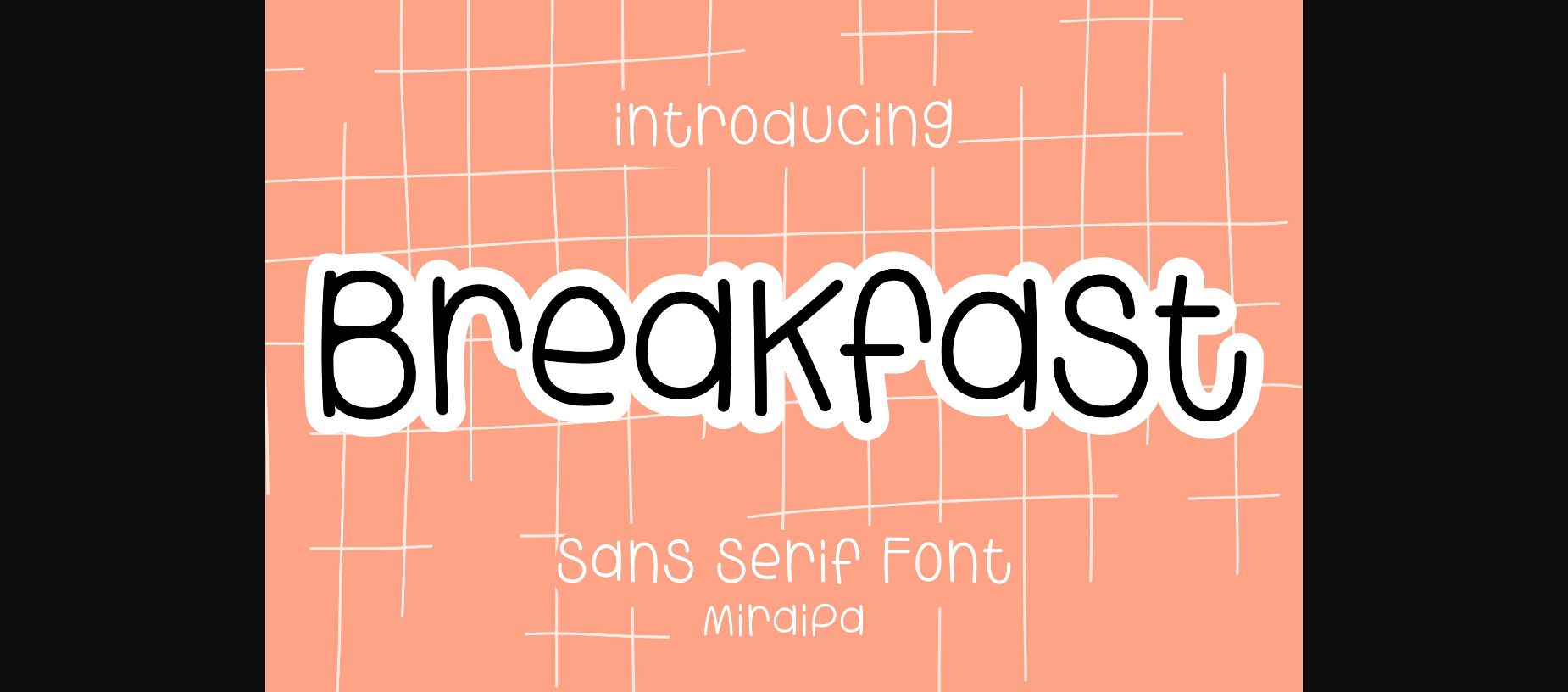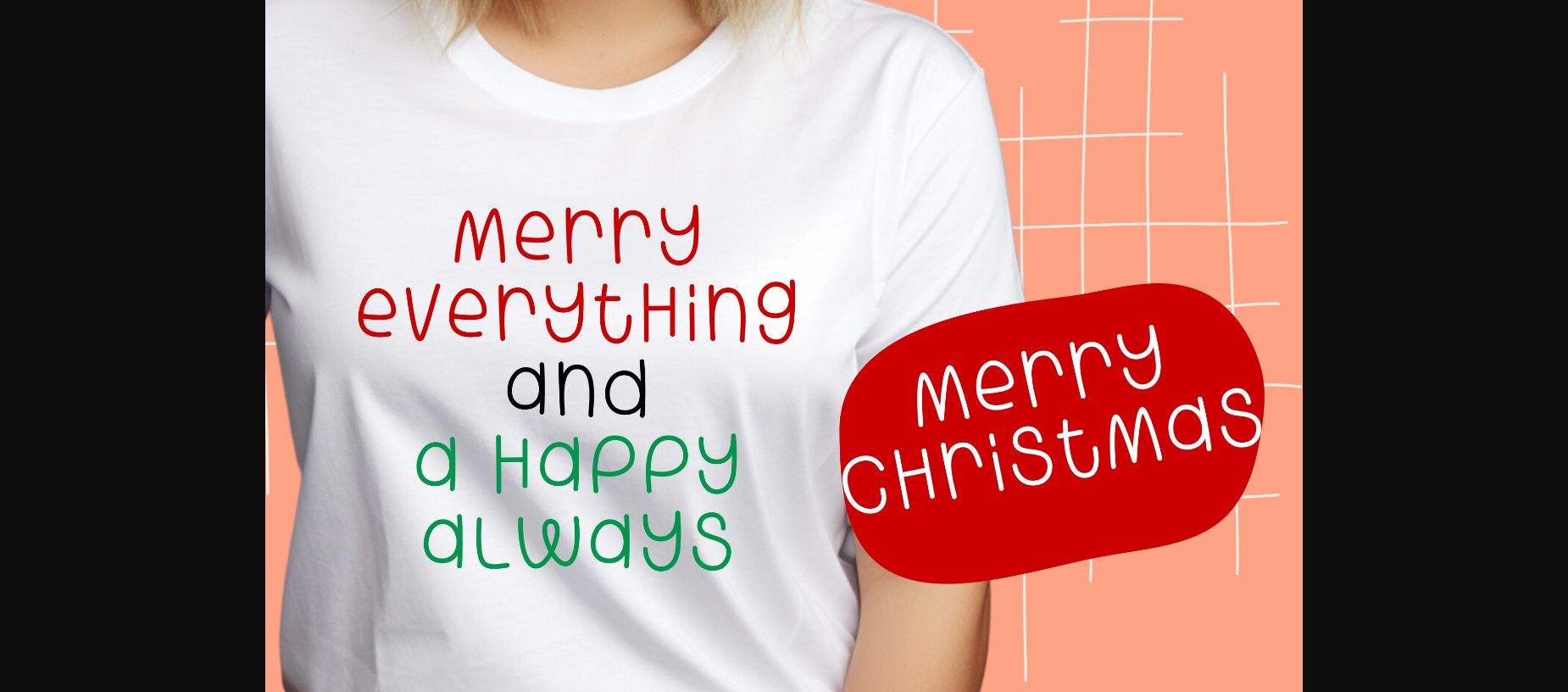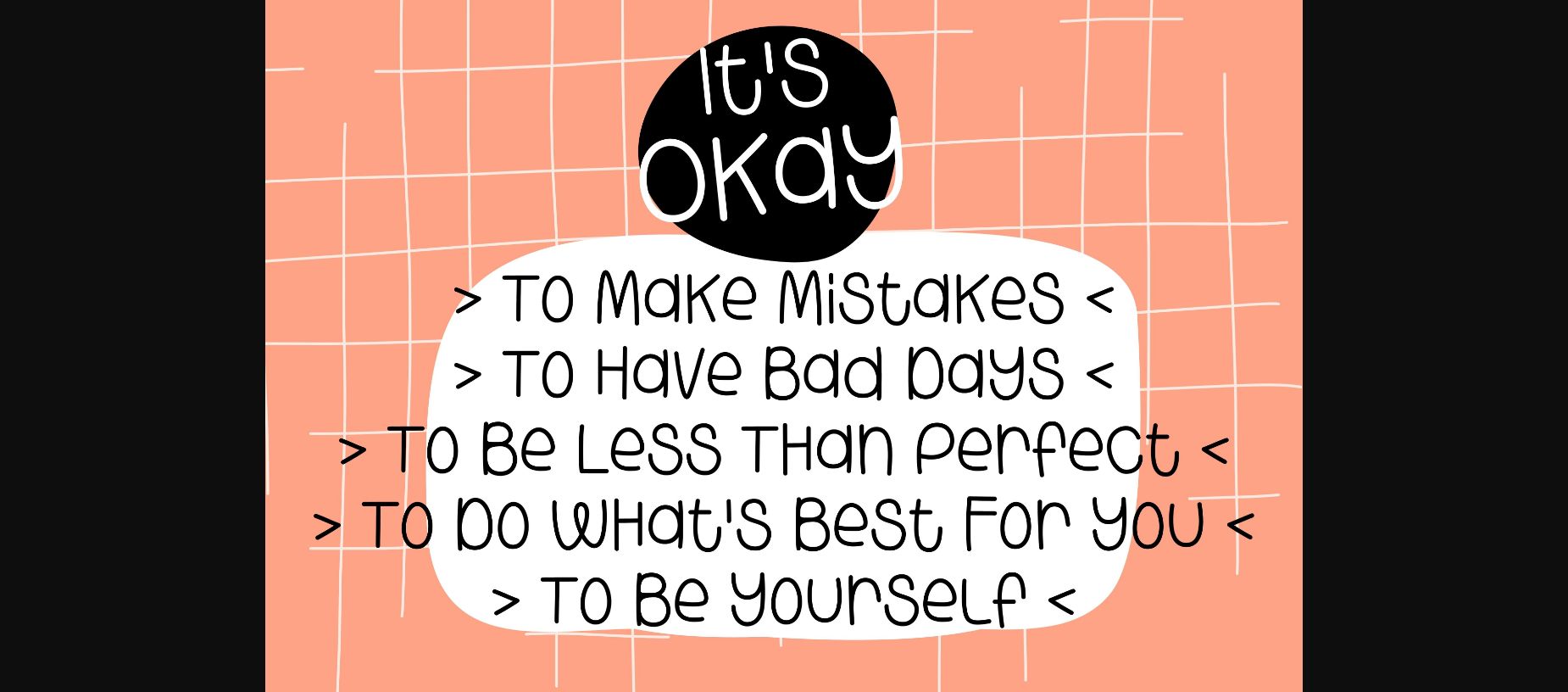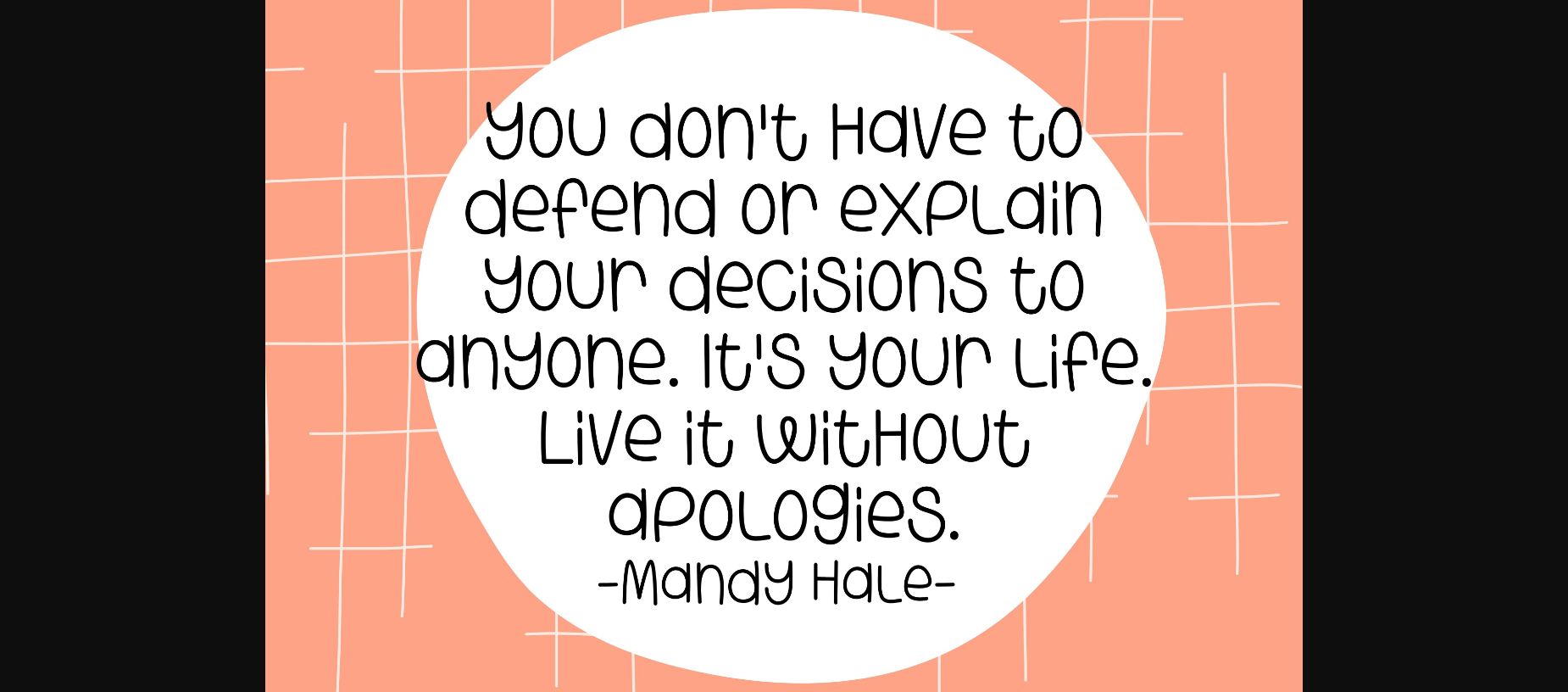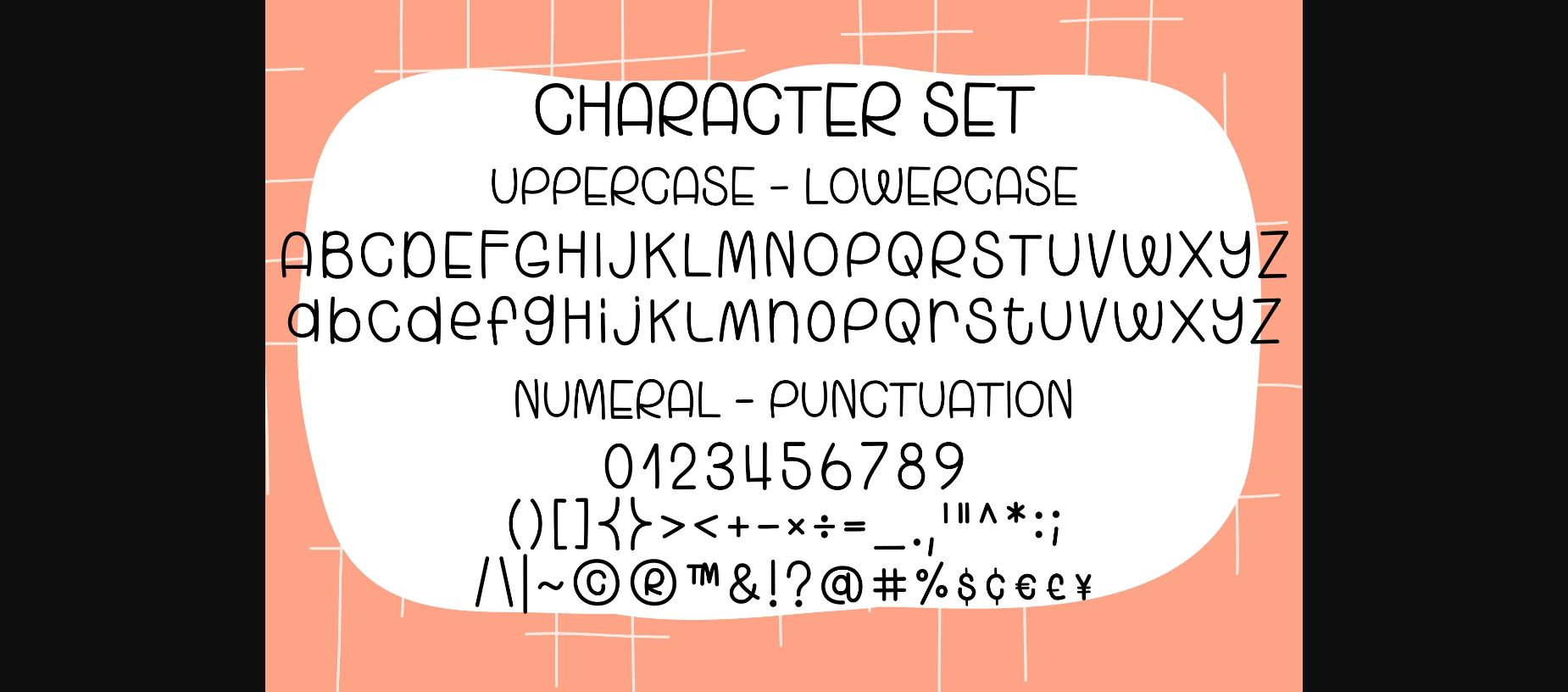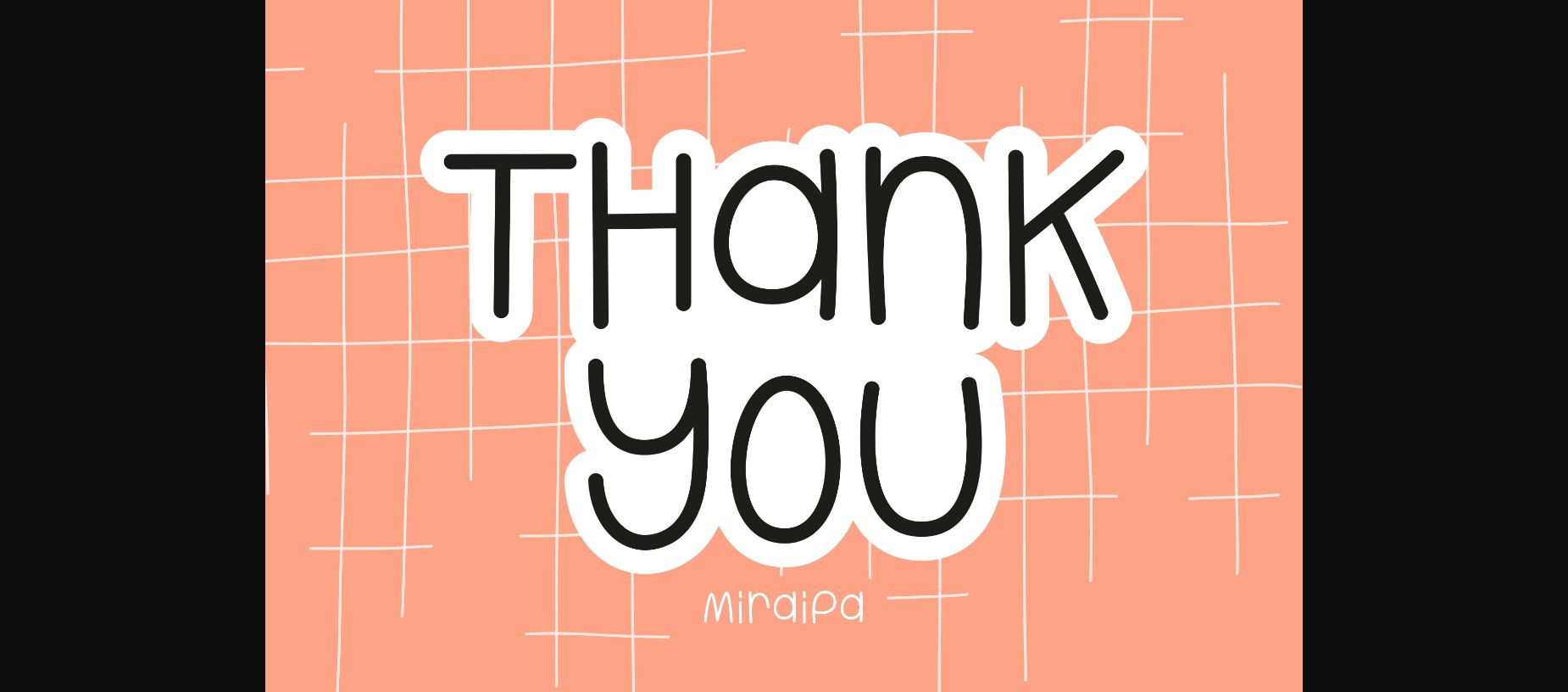
Breakfast is designed in a cute and playful sans serif font style. It is charming, whimsical, and a bit quirky and would be awesome to your fun projects and creative designs.